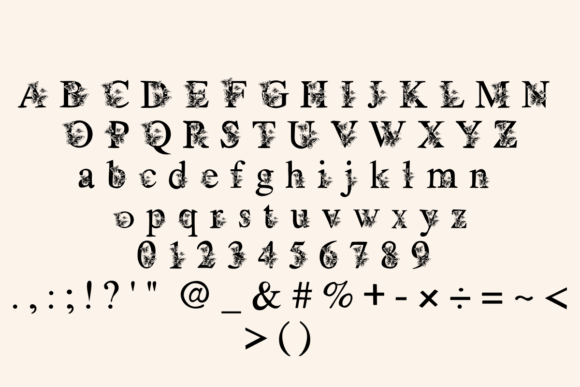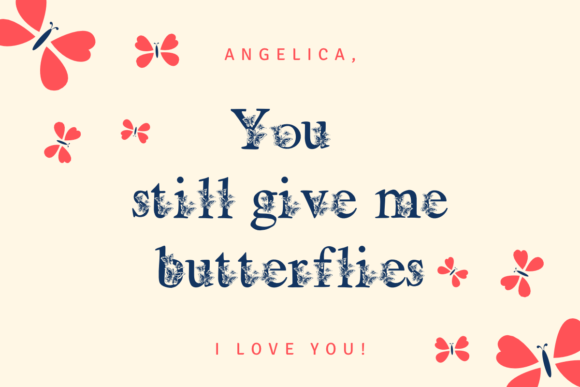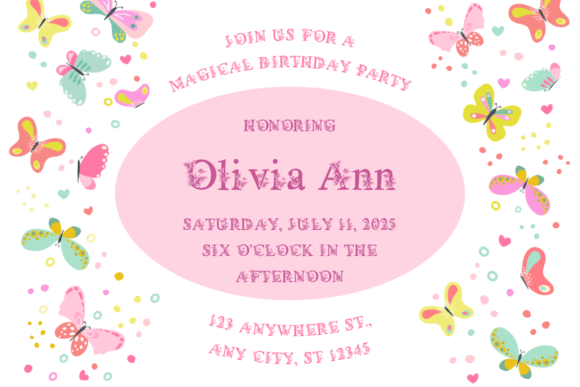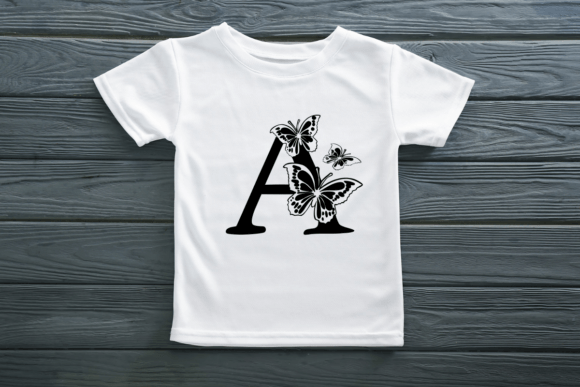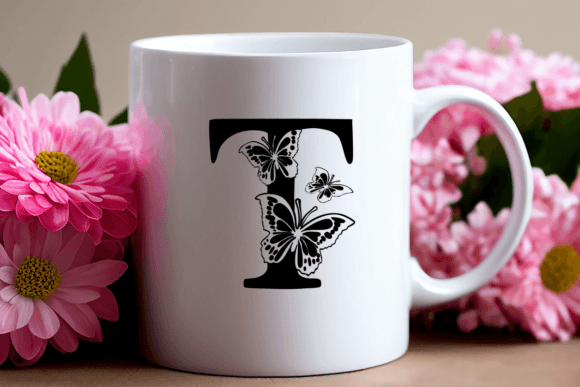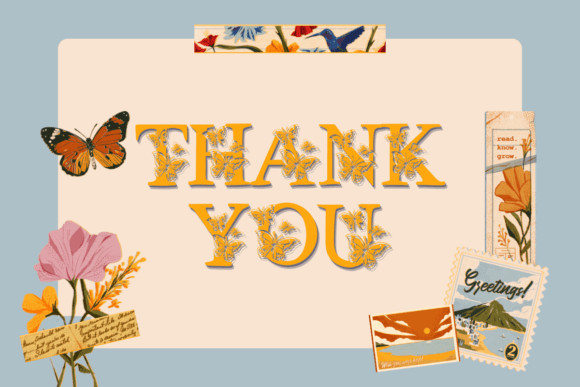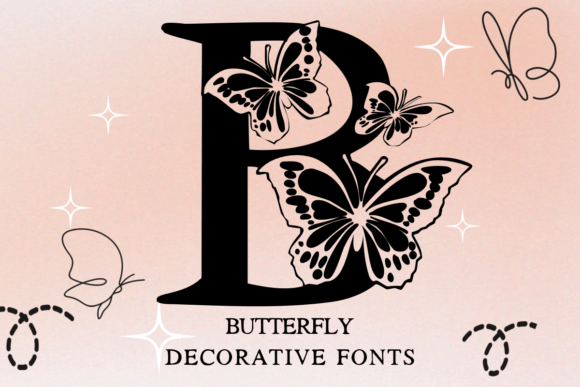
Introducing Butterfly Font: Adding Whimsy and Charm to Your Designs
Imagine letters dressed up with delicate butterflies, perched on each curve and line. That’s Butterfly, a fancy font where every letter gets its own special butterfly friend. It’s like a playful garden on your page, adding charm and whimsy to your words. In this article, we’ll explore the enchanting world of Butterfly Font and how it can elevate your designs and crafting projects.
The Concept Behind Butterfly Font
The Butterfly Font is a unique and creative typeface that combines traditional lettering with the delicate beauty of butterflies. Each letter is intricately designed to feature its own butterfly companion, bringing a sense of playfulness and wonder to your text. Whether you’re working on a branding project, creating invitations, or crafting handmade cards, this font is sure to add a touch of magic to your work.
Design Features of Butterfly Font
The Butterfly Font boasts a range of design features that make it a standout choice for designers and crafters. Some of its key characteristics include:
- Delicate Butterfly Accents: Each letter is adorned with its own butterfly, carefully crafted to add a touch of elegance and sophistication to your text.
- Playful and Whimsical: The Butterfly Font is perfect for projects that require a sense of playfulness and whimsy, such as children’s party invitations, craft tutorials, or social media graphics.
- Customizable: With a range of font styles and sizes available, you can easily customize the Butterfly Font to suit your design needs.
Uses for Butterfly Font
The versatility of the Butterfly Font makes it suitable for a wide range of design and crafting projects. Here are some ideas to get you started:
- Handmade Cards and Invitations: Add a personal touch to your greeting cards and invitations with the Butterfly Font, creating unique and eye-catching designs that will leave a lasting impression.
- Branding and Packaging: Use the Butterfly Font to create a distinctive brand identity that showcases your personality and style.
- Social Media Graphics: Elevate your social media presence with eye-catching graphics featuring the Butterfly Font, perfect for promoting your business or sharing fun and creative content.
- Craft Tutorials and Patterns: Add a touch of whimsy to your craft tutorials and patterns with the Butterfly Font, making your content more engaging and fun to follow.
Tips for Working with Butterfly Font
The Butterfly Font is a unique and captivating typeface that can add a touch of magic to your designs and crafting projects. With its delicate butterfly accents, playful and whimsical feel, and customizable design features, this font is perfect for designers and crafters looking to create eye-catching and memorable content. Whether you’re working on a branding project, creating handmade cards, or crafting social media graphics, the Butterfly Font is sure to inspire your creativity and bring a smile to your face.